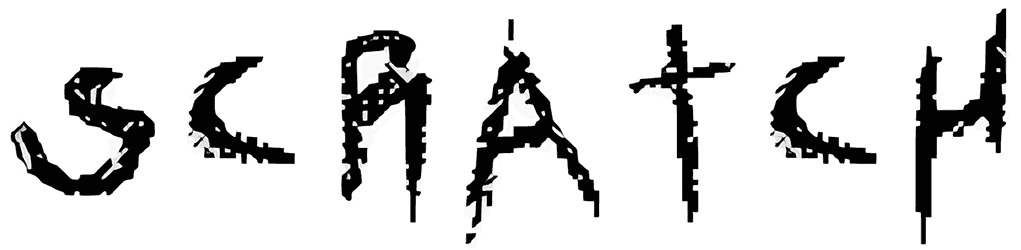
Scratch Font
Grunge and mess are the elements of design that give Scratch a creepy and scary look. This horror font with its unique design would be perfect for Halloween product packaging, scary movie posters, zombie game flyers, and…
Grunge and mess are the elements of design that give Scratch a creepy and scary look. This horror font with its unique design would be perfect for Halloween product packaging, scary movie posters, zombie game flyers, and scary ride banners at amusement parks.